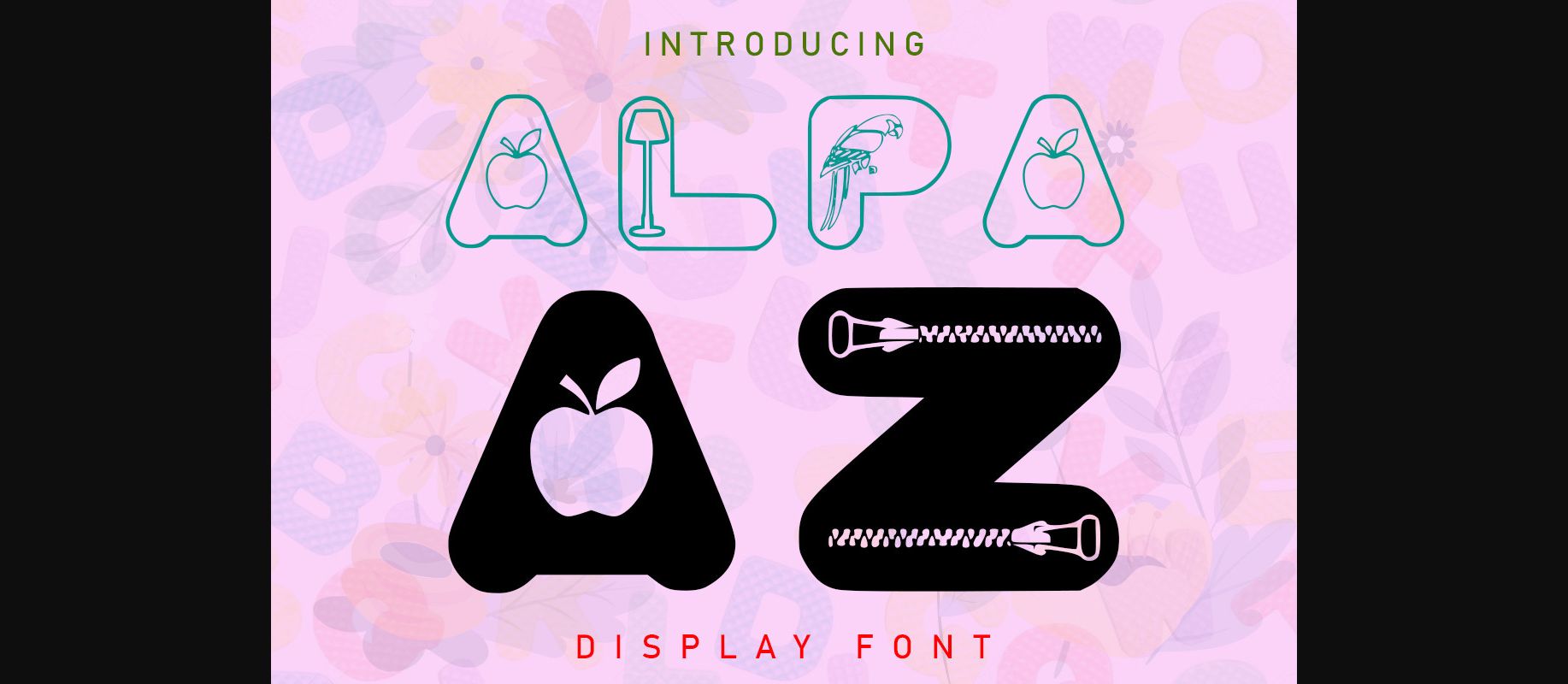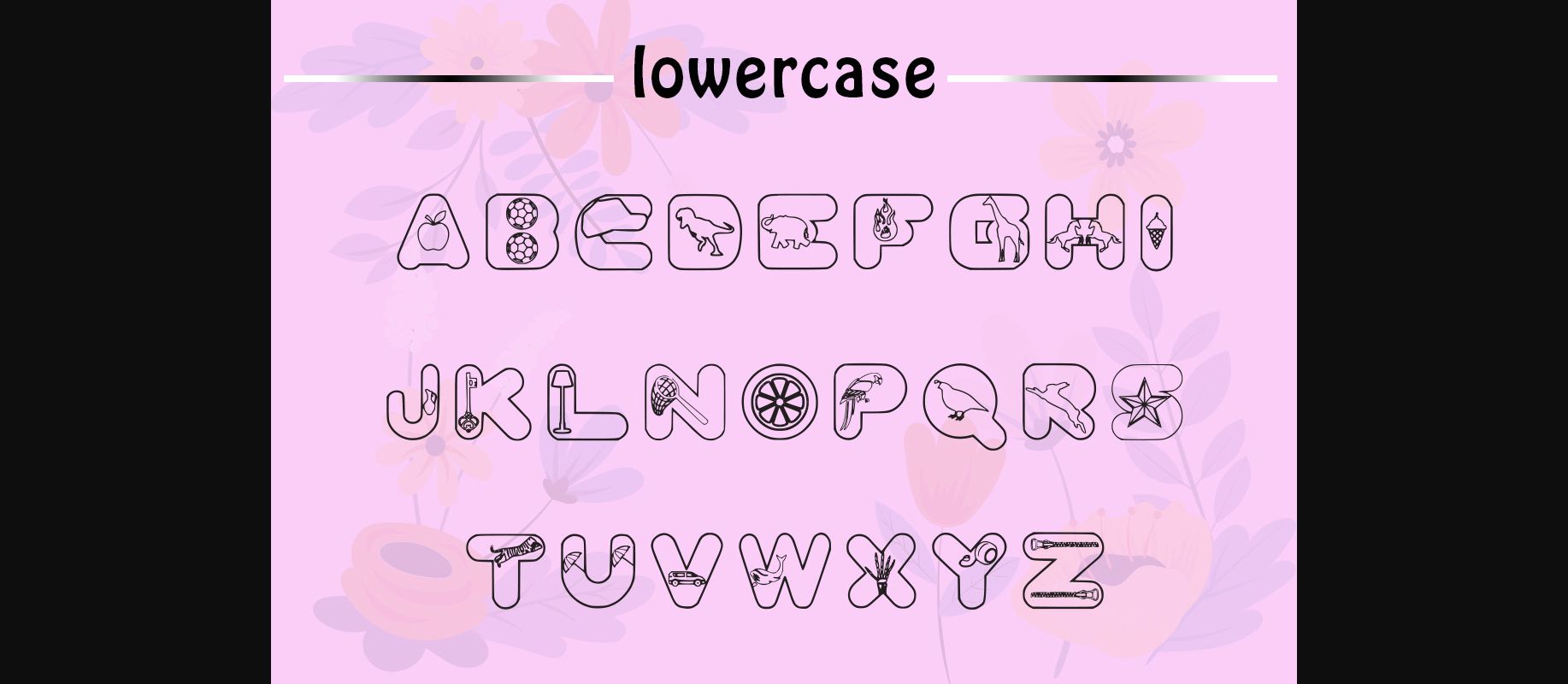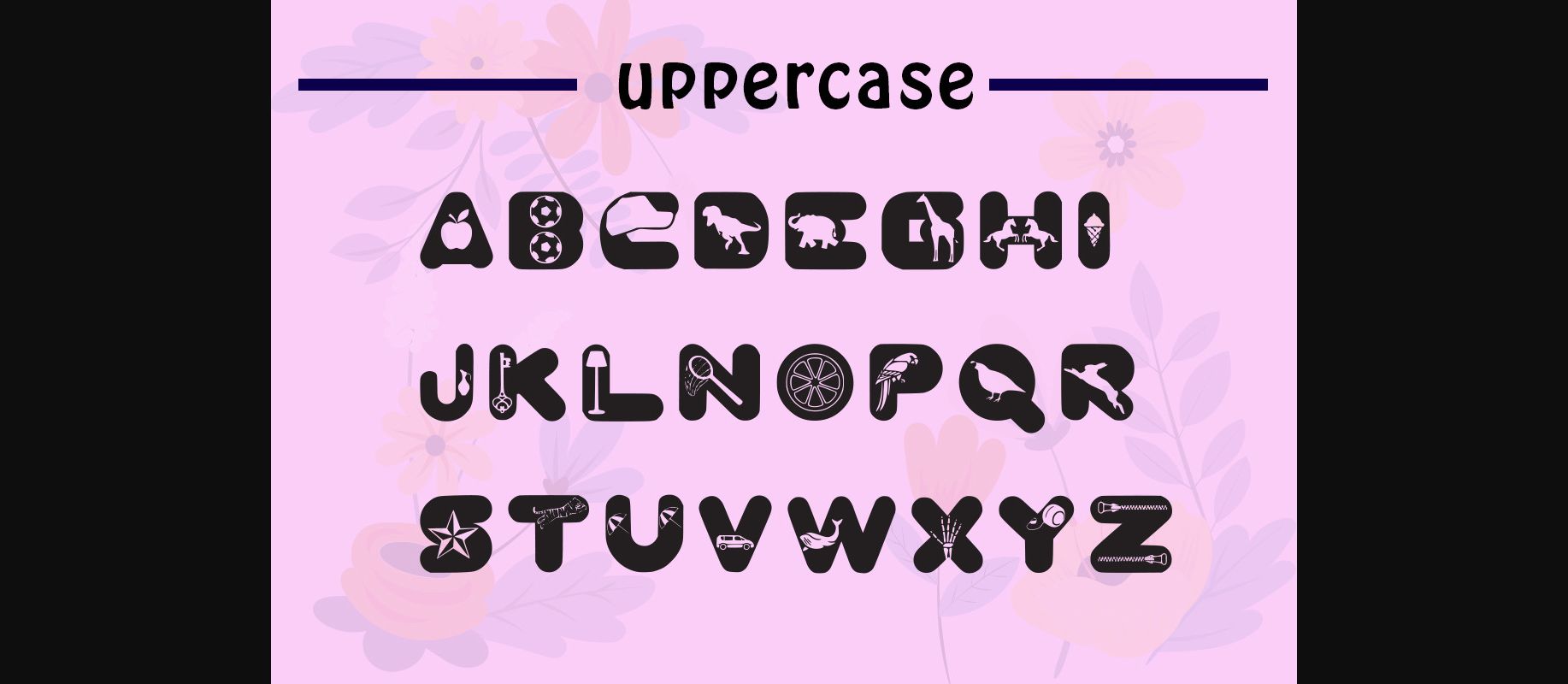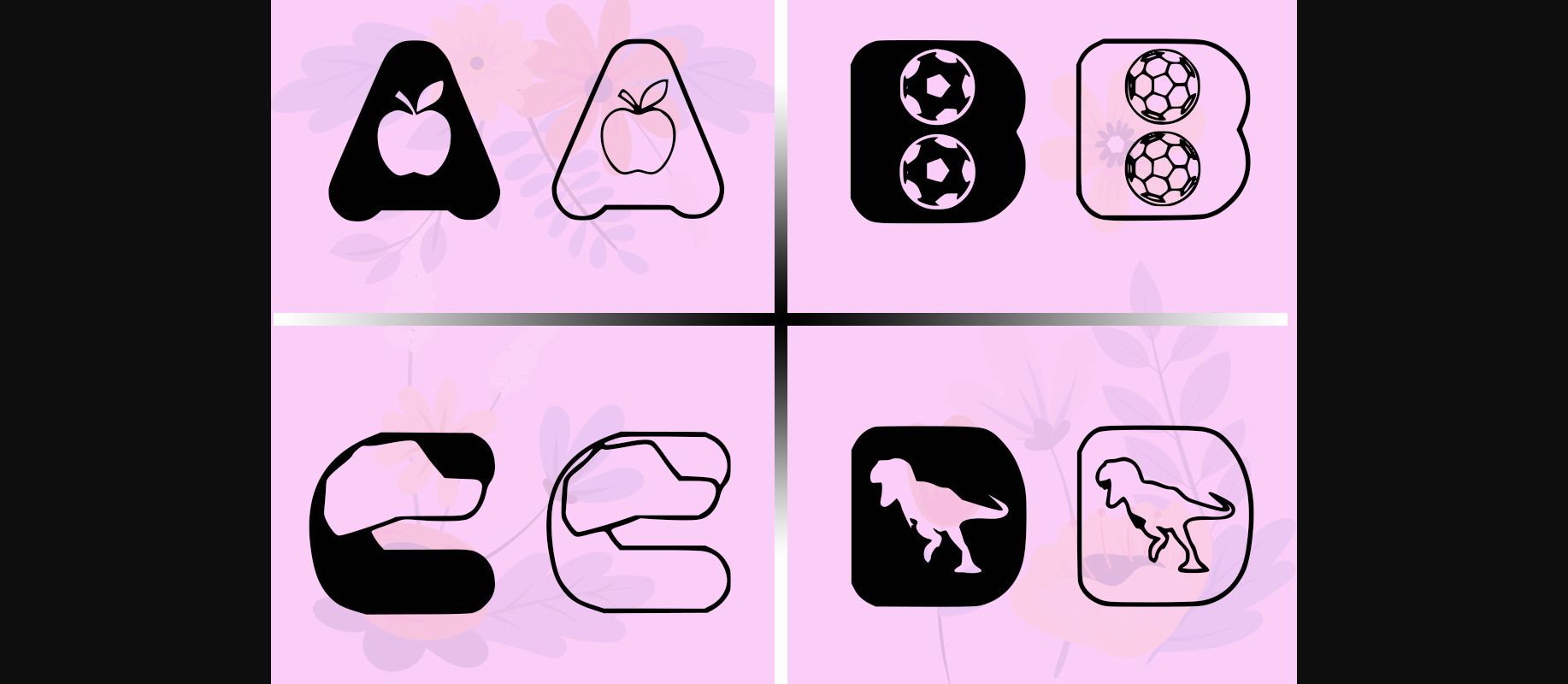
Alpa AZ Font
About Alpa AZ Font
Are you looking for a good Font for kids? Can’t find the right thing? Now you are at the right place! Alpa Az is a cool, uniquely shaped, and interesting decorative font. Alpa Az is a font that will make your design look modern, unique, and above all, fun! This font is perfect for kids’ crafts and school projects.